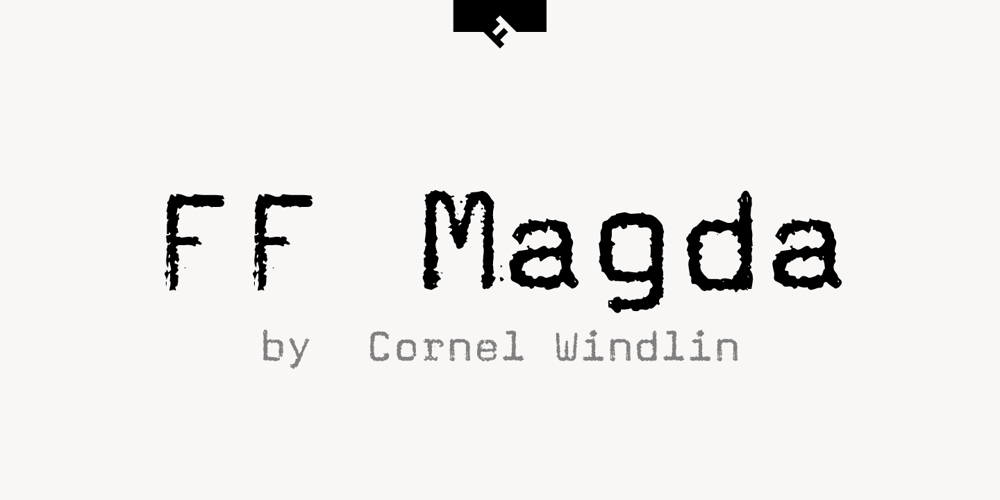
FF Magda Clean Font Family was designed by Henning Krause, Cornel Windlin, Critzla and published by FontFont. FF Magda Clean contains 3 styles and family package options. Swiss type designer Cornel Windlin created this display and slab FontFont in 1995. The family has 9 weights, ranging from Thin to Black and is ideally suited for advertising and packaging, editorial and publishing, logo, branding and creative industries as well as poster and billboards. FF Magda provides advanced typographical support with features such as ligatures, alternate characters, case-sensitive forms, and stylistic alternates. It comes with tabular lining and tabular oldstyle figures. This FontFont is a member of the FF Magda super family, which also includes FF Magda Clean and FF Magda Clean Mono.